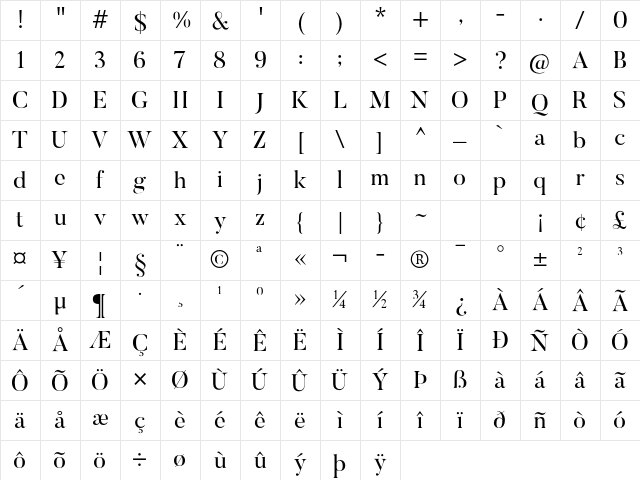
Butler Regular Free Font
Butler Regular
Designer: Fabian De Smet
Butler Family
Butler Regular
Design Context for Butler
Butler is a composed and adaptable typeface that performs quietly and consistently across a wide range of design contexts.
Pro Tip: Use Butler in both headline and body roles to test its range before committing to a single application.